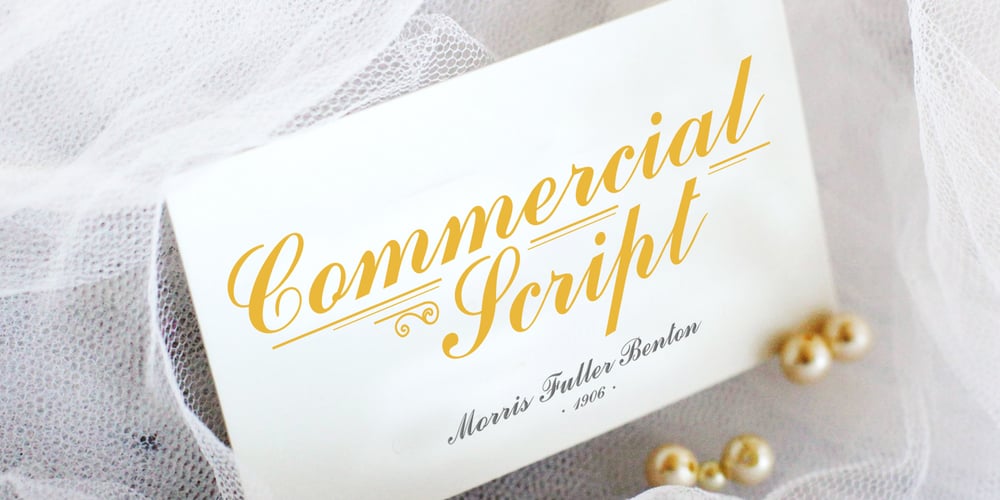
Commercial Script Font Family was designed by Morris Fuller Benton and published by Bitstream. Commercial Script contains 1 styles and family package options. A bold weight of a moderately flourished script designed for ATF by Morris Fuller Benton in 1908, and an industry standard since then.